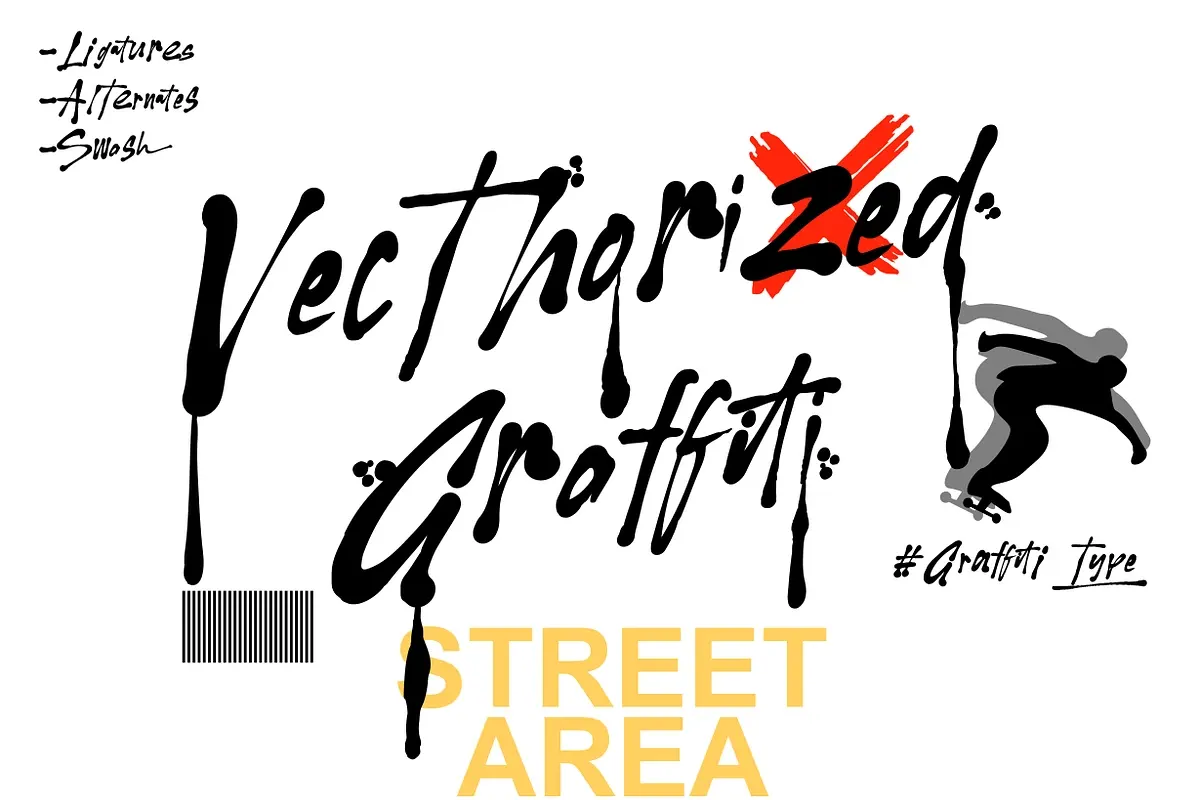
Vecthorized – Graffiti Type Font Free Download is a bold and energetic display font that captures the raw power of urban street art. With its sharp edges, layered strokes, and rebellious style, this graffiti-inspired typeface is perfect for album covers, streetwear branding, skate culture visuals, and anything that thrives on bold self-expression.
This font isn’t just loud—it’s a statement. Vecthorized brings attitude, motion, and urban rhythm to every word you design. Whether you're creating flyers, merch, or digital graffiti artwork, this font sets the tone with unmistakable street-style flair.
Designers looking to infuse their work with urban edge and authenticity turn to Vecthorized – Graffiti Type Font Free Download. Try it out today and take your creativity off the grid and into the streets.